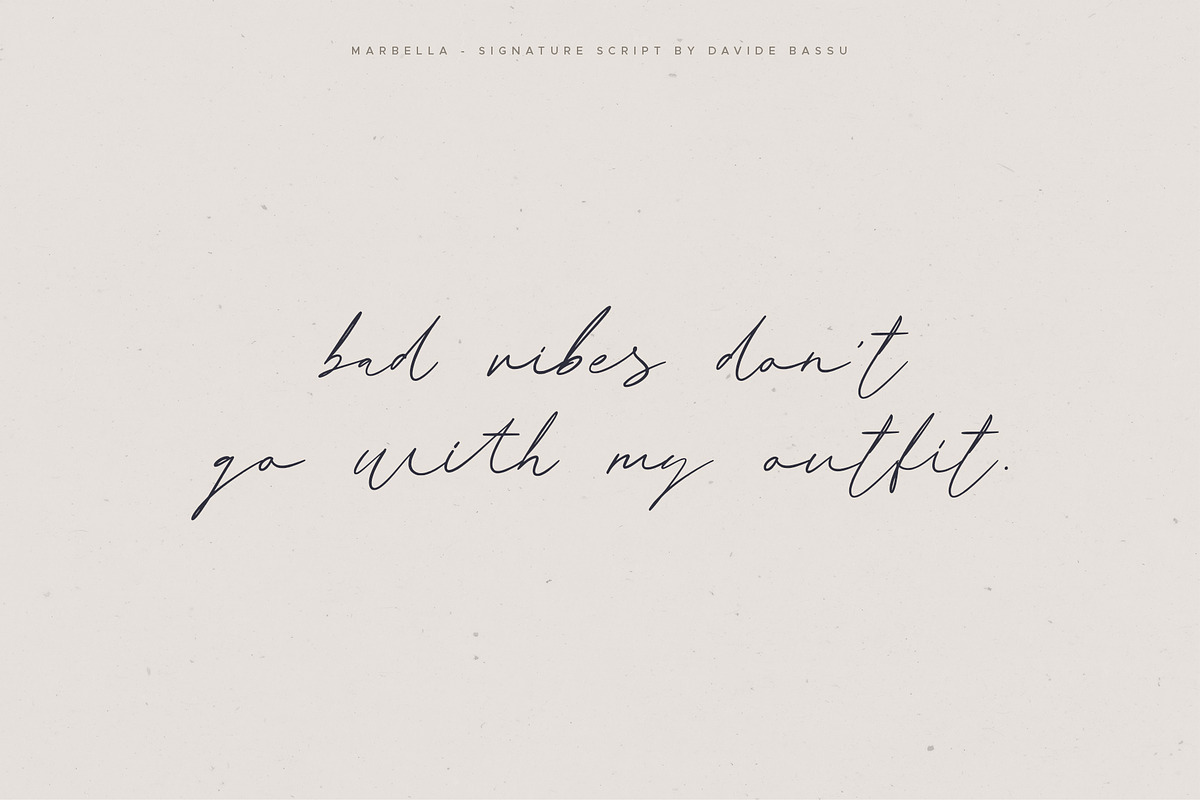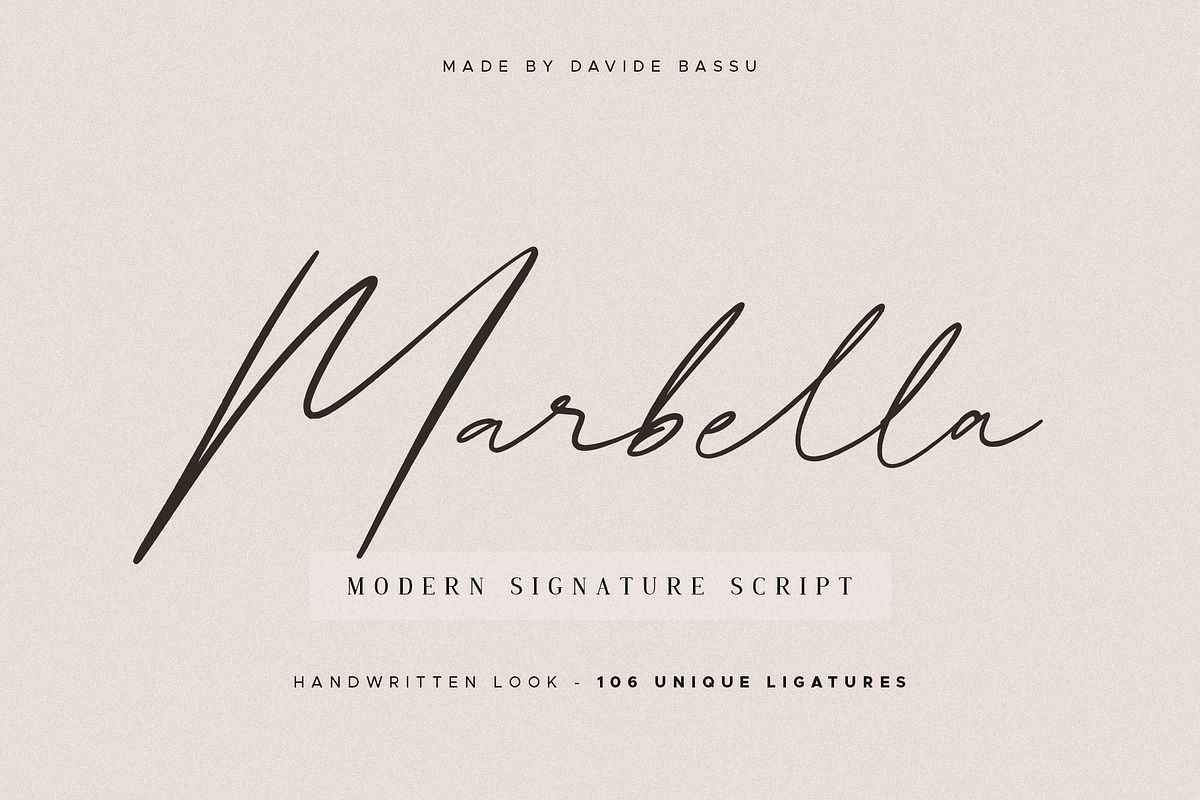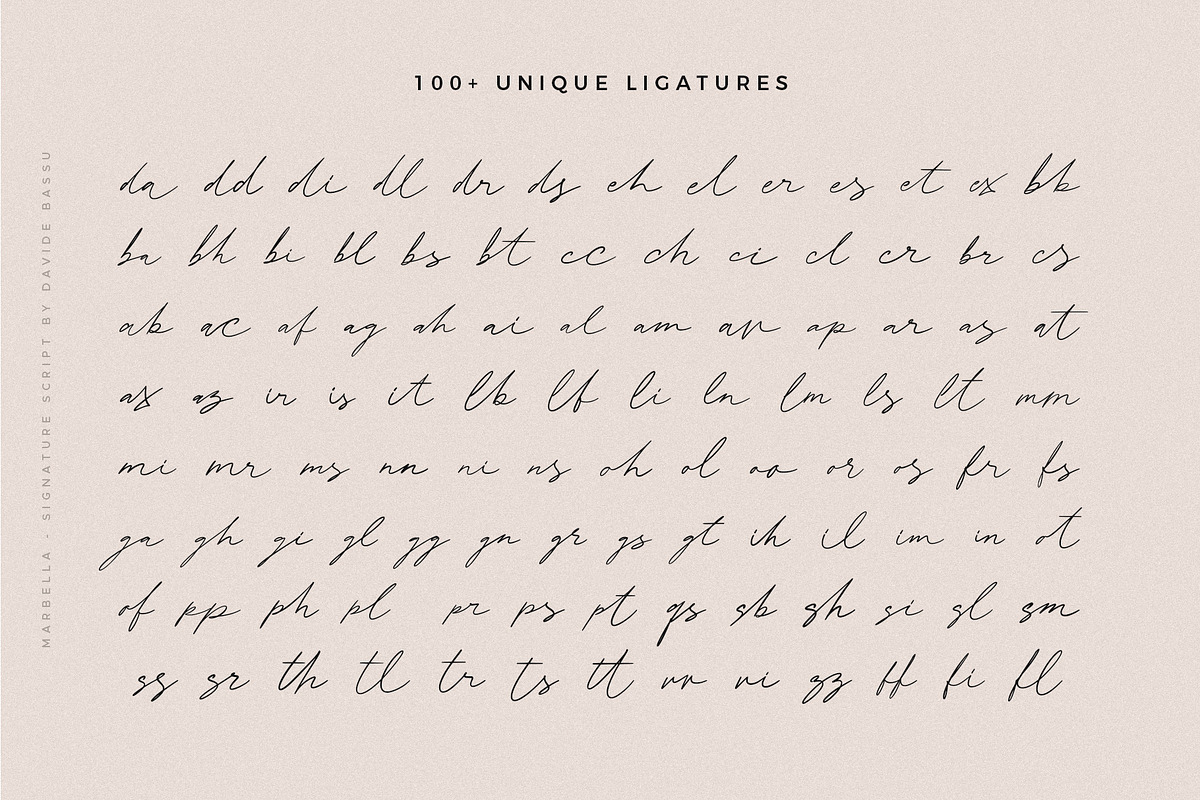
Marbella - Stylish signature script
Introducing Marbella - my brand new handmade signature font. This stylish script has been finely designed taking care of every detail, to make your next creative project stand out from the crowd. You can use it for Logo designs, branding, wedding materials, prints, social media designs and much more!
Marbella includes full set of uppercase and lowercase letters, numerals and a large range of punctuation. It comes with 106 unique ligatures, giving your design a realistic handlettered style.